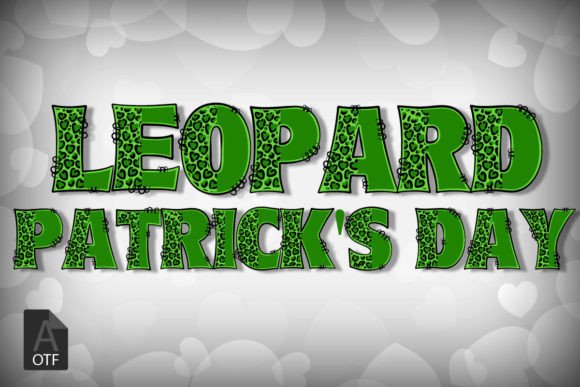
Leopard Patrick's Day Font: A Journey Through Creative Festivity!
Step into a world of vibrant creativity with Leopard Patrick's Day Font – a delightful fusion of artistry and celebration. This exquisite color font, handcrafted by Little Lady Design, is not just a collection of letters but an invitation to unleash your imagination.
Picture this: you're designing a St. Patrick's Day poster, and you want it to be an unforgettable masterpiece. As you browse through the fonts, your eyes are drawn to Leopard Patrick's Day Font. It's like a breath of fresh air, bursting with colors and intricate details that captivate your senses.
The moment you lay your eyes on this font, you know it's not just another design element – it's an experience. Its vibrant hues and carefully crafted shapes ignite your creativity, urging you to embark on a design journey like no other.
With Leopard Patrick's Day Font, your designs will be transformed into captivating spectacles. Imagine your St. Patrick's Day poster adorned with this font. The words "Happy St. Patrick's Day" leap off the page, their playful curves and lively colors inviting viewers to join the festive celebration.
But Leopard Patrick's Day Font isn't limited to St. Patrick's Day designs. Its versatility is as remarkable as its beauty. Whether you're creating invitations, social media posts, or website designs, this font adds a touch of magic that elevates your projects to new heights.
Don't settle for ordinary fonts that fade into the background. Embrace the extraordinary with Leopard Patrick's Day Font. Let your designs radiate joy, vibrancy, and a dash of Irish charm.
So dive into the realm of creativity and let Leopard Patrick's Day Font be your guide. Experience the joy of designing with a font that speaks to your heart, a font that captivates audiences, and a font that transforms your designs into masterpieces.